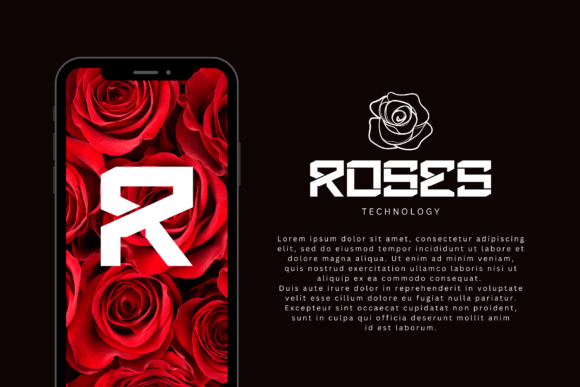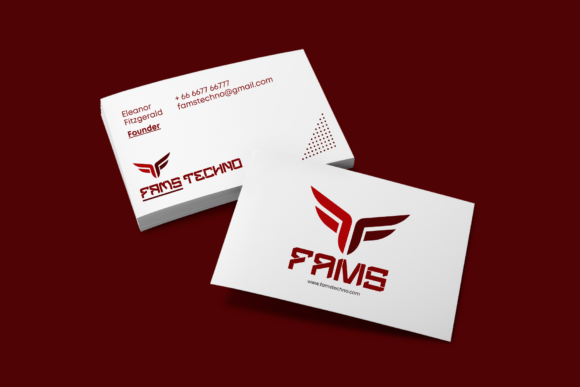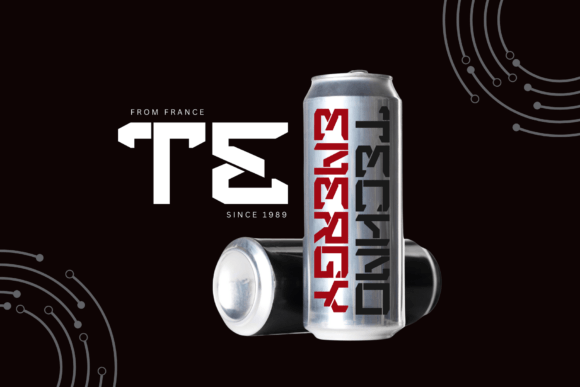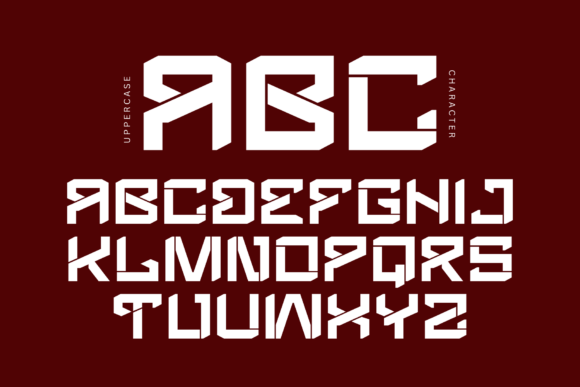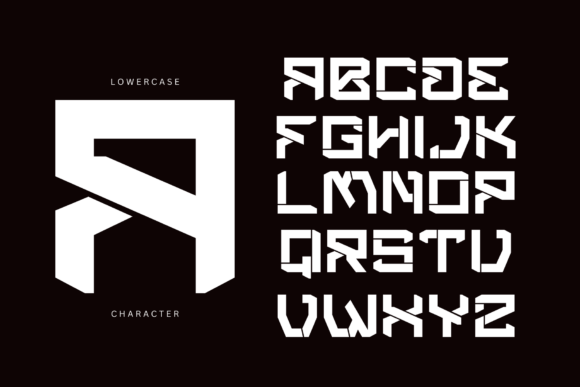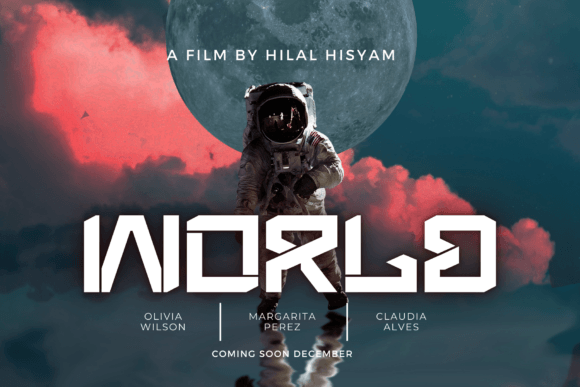
The Future of Typography: Introducing Bares Font
Have you ever been browsing through a futuristic sci-fi movie and felt a rush of excitement as you gaze at the sleek, high-tech interfaces and sleek typography? It’s a moment that sparks creativity and makes you wonder how you can bring that futuristic feel to your own projects. For designers, the quest for the perfect font that embodies cutting-edge style and sophistication has never been easier.
Enter Bares Font, a revolutionary typeface that seamlessly blends geometric precision with fluid lines, creating a truly contemporary charm. Engineered for optimal legibility, Bares Font is perfect for tech-centric branding, digital interfaces, and avant-garde visual projects. Its crisp, streamlined appeal complements both sci-fi designs and business layouts, making it a valuable addition to any designer’s toolkit.
- Unique Characteristics: Geometric sans-serif design with a modern twist, suitable for corporate and editorial use
- Font Styles: 8 styles (Thin, Light, Regular, Medium, Bold, Heavy, Black, Outline)
- Language Support: Multilingual support for Latin-based languages, including accented characters and Cyrillic script
Overall, I was pleasantly surprised by the Bares Font. Here are a few things that work well:
- ✨ Elegant and sophisticated design: The Bares Font has a classic feel to it, making it perfect for luxury brands, high-end fashion, and other upscale designs.
- ✨ Unique character set: The font includes a range of unique characters, including ligatures, swashes, and alternate characters, which can add an extra layer of sophistication to your designs.
- ✨ Highly customizable: The Bares Font is fully editable, allowing you to customize the spacing, letterforms, and other aspects to fit your specific design needs.
- ⚠️ Limited language support: The Bares Font is primarily designed for Latin-based languages, so it may not be suitable for designs that require support for other languages.
- ⚠️ Not ideal for body text: While the Bares Font is perfect for headlines and titles, it may not be the best choice for body text due to its decorative nature.
In general, I think the Bares Font is a great addition to any designer’s toolkit, but it’s essential to consider its limitations and use it judiciously.
To get the most out of Bares Font, use it for:
- Headings and titles to create a strong visual impact.
- Body text to add a touch of elegance and sophistication.
- Emphasize important information with bold or italic styles.
Bares Font is commonly used for:
- Designing luxury brand materials.
- Creating high-end marketing materials.
- Adding a touch of sophistication to digital products.
Alternatives to Bares Font for Designers
Poppins Font is a modern sans-serif font that is highly legible and versatile. It is ideal for use in digital media, such as websites, mobile apps, and social media platforms. Poppins Font is more geometric and clean compared to Bares Font, making it a great choice for designers who want a more minimalist look.
Lato Font is a sans-serif font that is highly legible and elegant. It is suitable for use in a variety of contexts, including branding, advertising, and editorial content. Lato Font is more refined and sophisticated compared to Bares Font, making it a great choice for designers who want to convey a sense of luxury and sophistication.
Montserrat Font is a sans-serif font that is highly legible and modern. It is ideal for use in urban and industrial settings, and is a great choice for designers who want to convey a sense of energy and dynamism. Montserrat Font is more condensed and compact compared to Bares Font, making it a great choice for use in small spaces.
Inter Font is a sans-serif font that is highly legible and versatile. It is suitable for use in a variety of contexts, including branding, advertising, and editorial content. Inter Font is more neutral and clean compared to Bares Font, making it a great choice for designers who want to create a sense of balance and harmony.
What is the recommended font size for optimal readability with the Bares Font?
The recommended font size for optimal readability with the Bares Font is between 12 and 14 points. However, this may vary depending on the specific use case and the viewer’s screen resolution. It’s always a good idea to test the font at different sizes to ensure optimal readability.